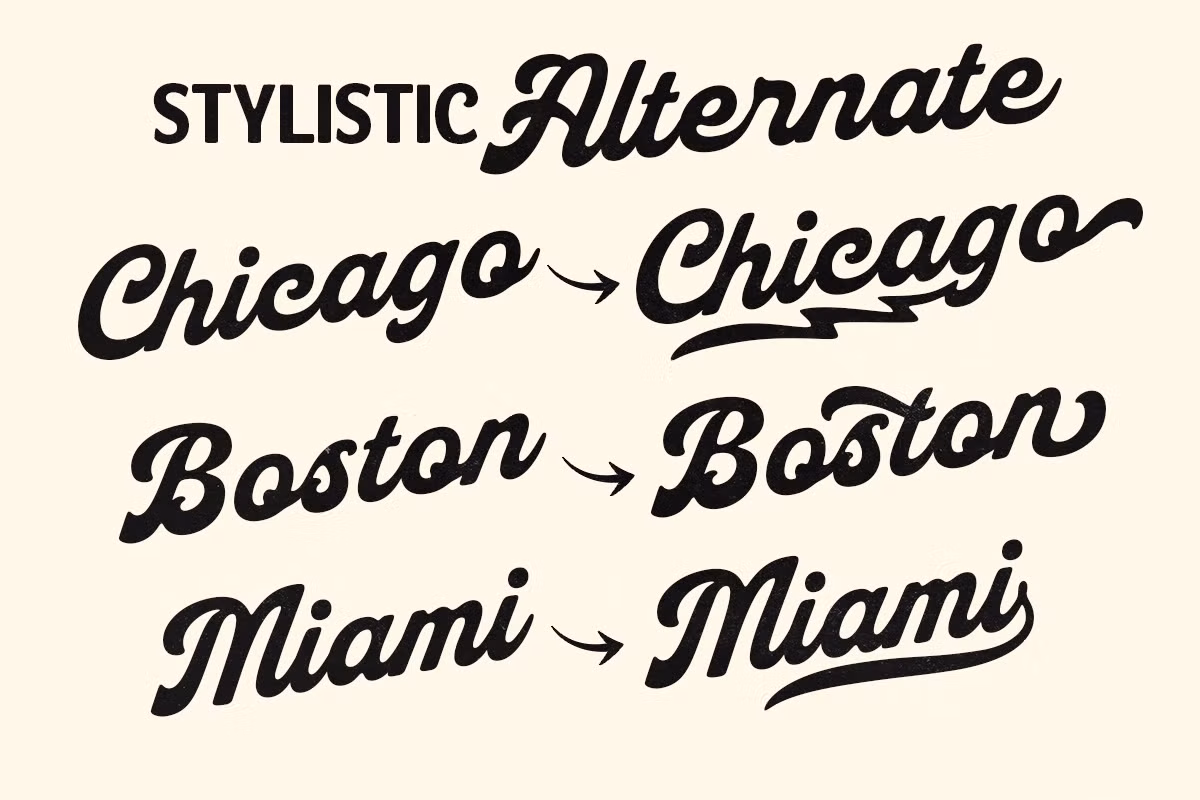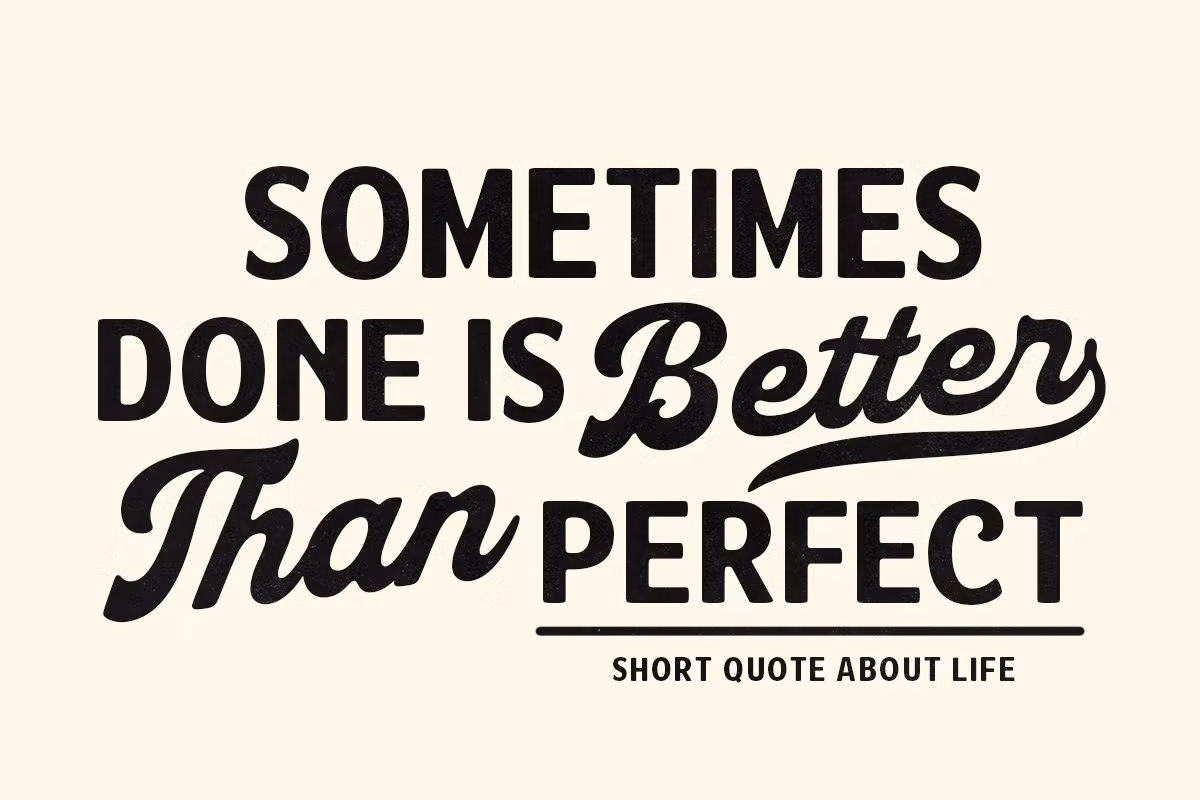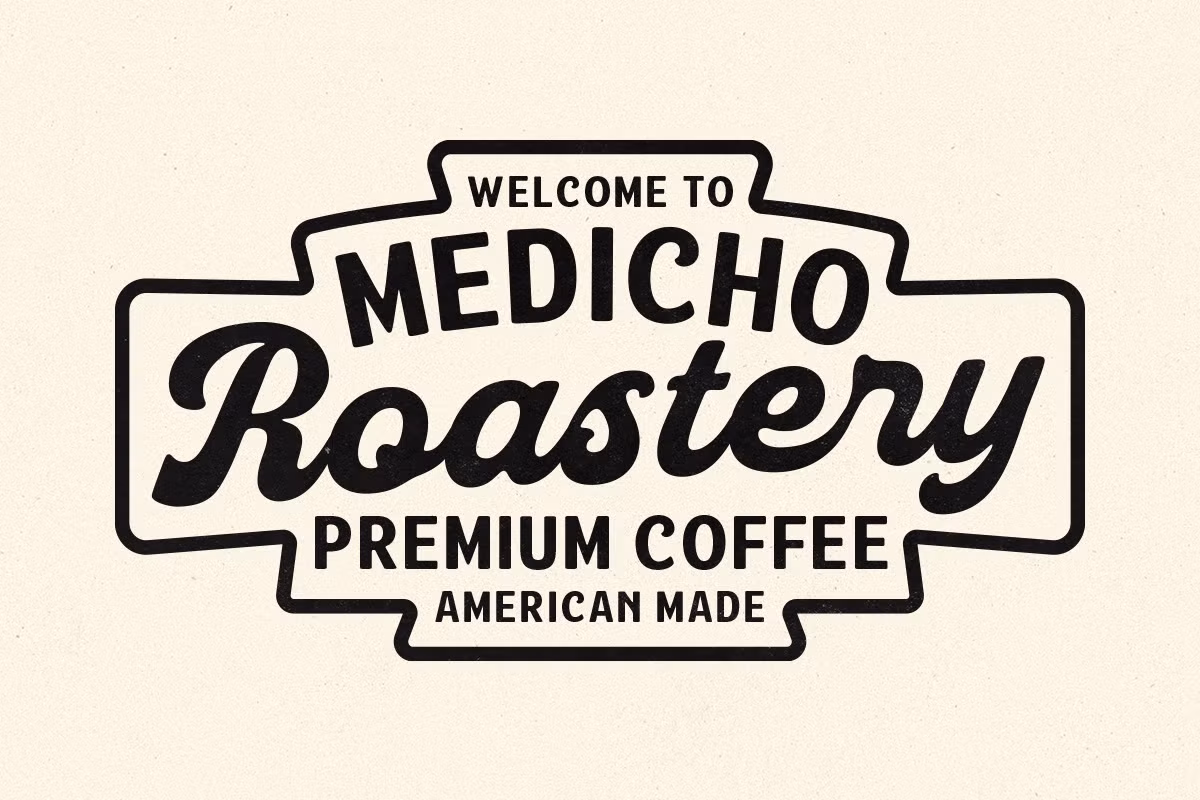
Midruns Font Duo: Vintage-Inspired Bold Script and Sans-Serif Typeface
The Midruns Font Duo is a really cool and creative font that brings together the best of old-school style and modern simplicity. It’s got two main parts: a bold script that’s super fancy, and a sans-serif style that’s clean and easy to read. This makes it a great choice for all sorts of design projects, from posters to websites. The curves are smooth, the vibe is retro, and it’s just perfect for adding some personality and flair to your work. Whether you’re looking to make a statement or just add some visual interest, Midruns is a great way to do it. It’s like a breath of fresh air for your designs, and it’s sure to make them stand out in a crowd.
The Midruns Font Duo has a classic look that’s still modern. It’s got a bold script font with curves that flow nicely, which makes it great for grabbing attention with headlines or logos. The other font, which is simple and clean, helps balance out the fancy script. When you use them together, they make a nice pair that’s both stylish and useful. The script font is really good at making things look dynamic, while the simple font keeps things looking fresh and contemporary. This combination is perfect for making your projects stand out.
Characteristics of the Script Font
The Midruns Font Duo has a really cool script style that grabs your attention with its lively strokes and one-of-a-kind letter shapes. What’s great is that the uppercase and lowercase letters are designed to work together perfectly, so you get a consistent look no matter where you use them. This script font is especially good for branding things like logos or ads, where you want to show off your personality and make a statement.
Features of the Sans-Serif Font
The simple font is a great match for the fancy script. It’s easy to read and understand, making it perfect for the main text, captions, or whenever you need to get your point across clearly. With its modern look, it can be used on its own or paired with the script font, giving designers the freedom to choose how they want their text to look. This flexibility is really useful, as it lets designers create a wide range of styles and moods in their work.
Character Sets and Glyphs
The Midruns Font Duo has a lot of characters, which makes it really useful. It comes with:
- Uppercase and lowercase letters
- Numbers and punctuation marks
- Alternates and ligatures for added creativity
- Multilingual support for global reach
Use Cases for the Midruns Font Duo
The Midruns Font Duo is really great for lots of different design projects. Here are some examples of where it works really well:
- Logos: The bold script can create memorable logos that capture attention, while the sans-serif can provide essential clarity.
- Packaging: Whether for food, cosmetics, or clothing, Midruns can add a distinctive flair to product labels.
- Apparel: T-shirt designs, hats, or other merchandise can benefit from the energetic vibe of the script.
- Signs: Stand out with bold and clear designs.
- Social Media Graphics: Ideal for posts that need to stand out in feeds.
Using the Midruns Font Duo can really make your text stand out. When you pair the two styles together, it can create a pretty cool effect. Here are a few ideas to think about:
- Script Headings with Sans-Serif Body Text: Use the script for headings to grab attention, and the sans-serif for legibility in body text.
- Creative Invitations: The script can set the mood for event invitations, while the sans-serif can convey essential details clearly.
- Marketing Materials: Combine the two fonts in brochures or flyers to create a visually appealing layout.
Experimenting with sizes and weights can lead to even more unique combinations, allowing designers to tailor the look to their specific needs.
The Midruns Font Duo is a great pick for designers who want to add a classic touch with a modern twist to their work. It’s got a bold script and a versatile sans-serif style, which makes it perfect for branding, packaging, and lots of other things. The font duo has a huge character set and some really unique design features, so it can handle all sorts of different projects. Whether you’re a pro designer or just starting out, Midruns has everything you need to take your typography to the next level. With its classic yet modern look, it’s a great way to add some personality to your designs and make them stand out. You can use it for all sorts of things, from logos and labels to posters and websites, and it’s sure to give your work a professional and stylish edge.